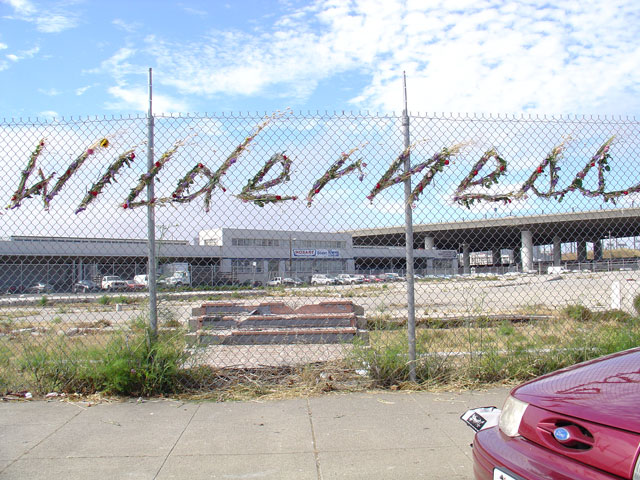
|  | Anna Wilson - Wilderness
This industrial neighborhood seemed like a good place to give people an opportunity to contemplate nature. The natural world can be forgotten in the city, the landscape is tamed and used for our own purposes. I want people to consider the relationship between nature and humanity in a non confrontational way and to remind people of the wildness and beauty of the "natural world". The typography evolved out of the need to weave the material according to the pattern of the fence as well as the wind which consistently blows in the same direction. This project is made from an chain link fence at 16th St. and 8th St. in San Francisco, with grass cut from the surrounding area as well as flowers rescued from the trash cans of the S.F. Flower Market. | |